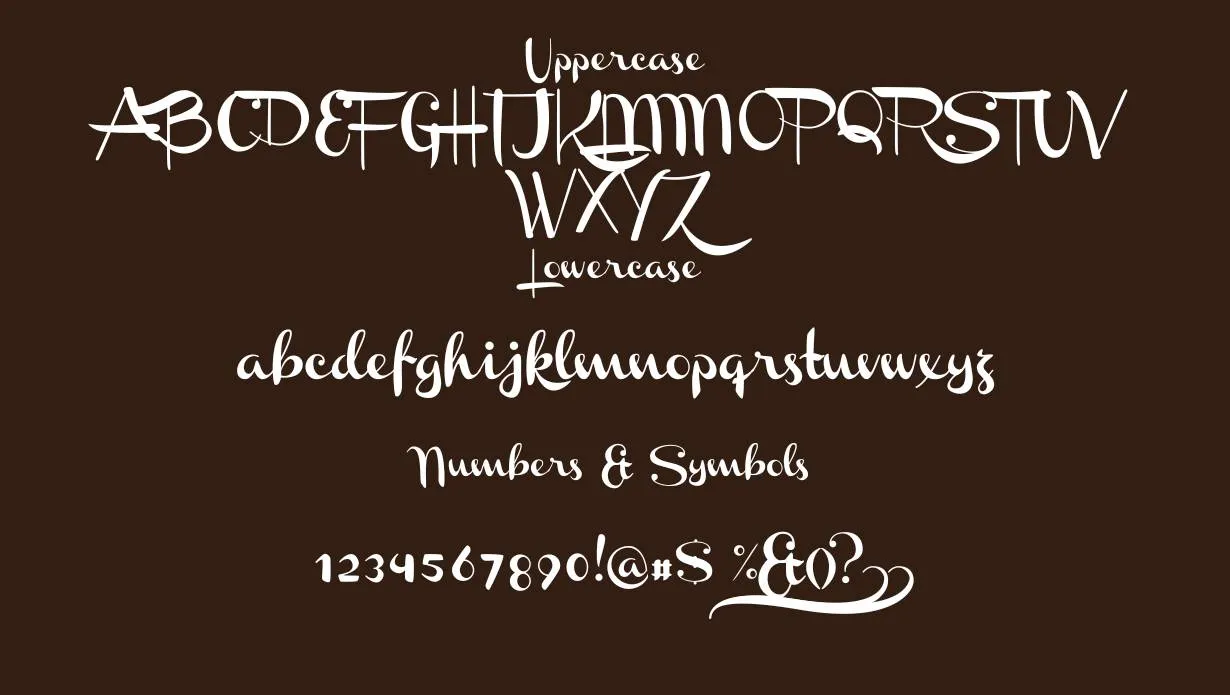
The Channel font exudes a modern and stylish appearance, perfect for sleek and sophisticated designs or branding. Its elegant touch enhances titles or logos in software like InDesign or Illustrator.